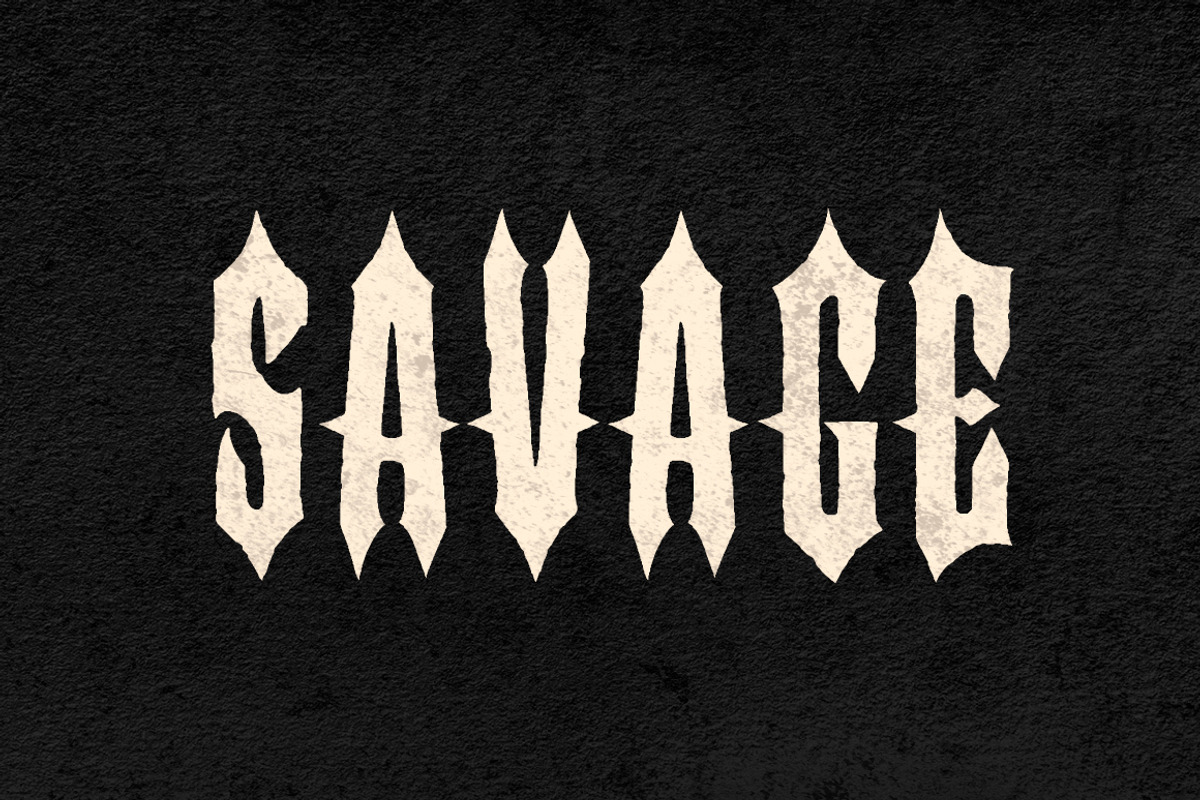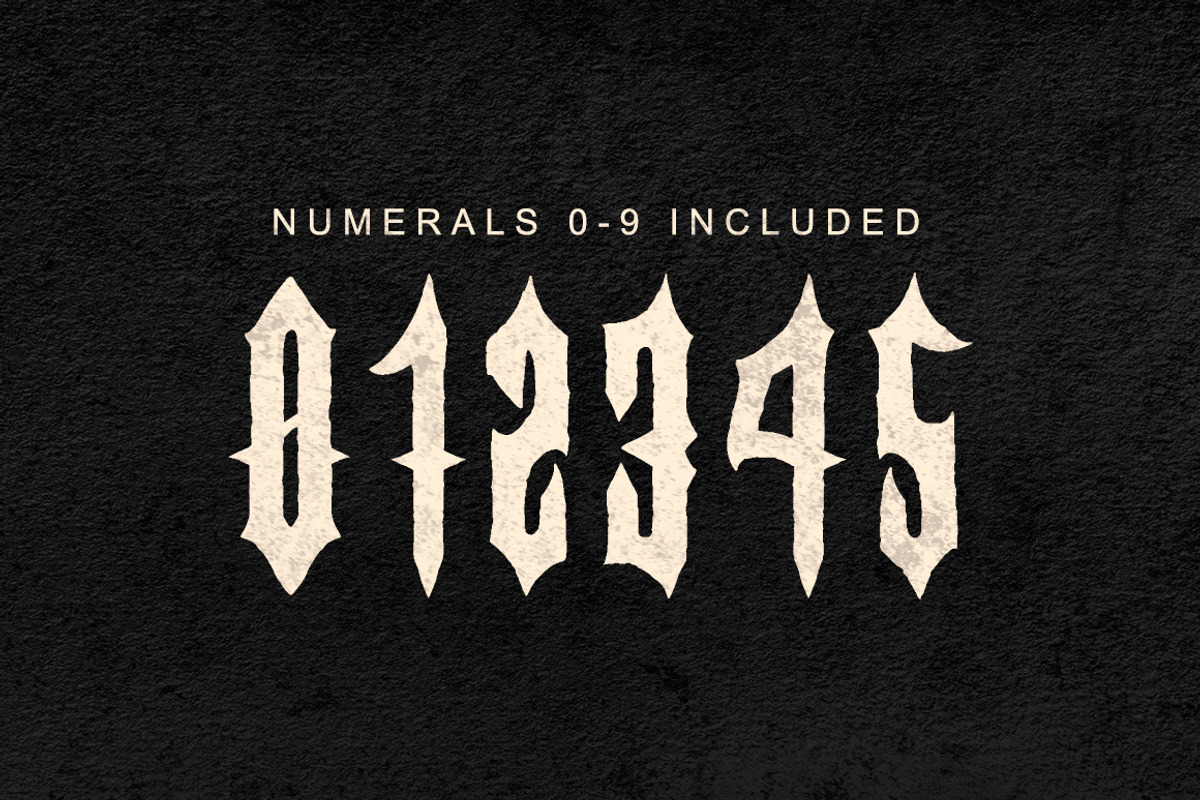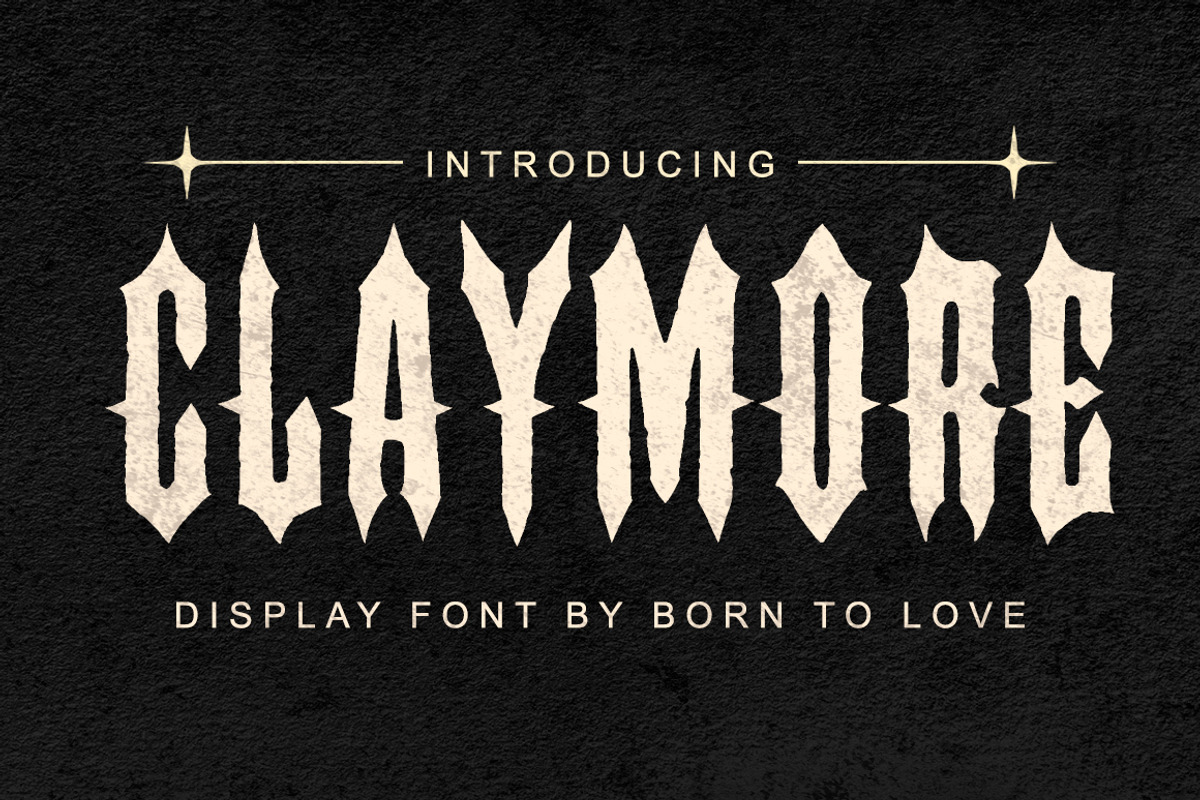
Claymore - Blackletter Display Font
CLAYMORE BLACKLETTER DISPLAY FONT
Claymore is a carefully hand-drawn font. Really easy to read, and a good font for your band or brand projects.